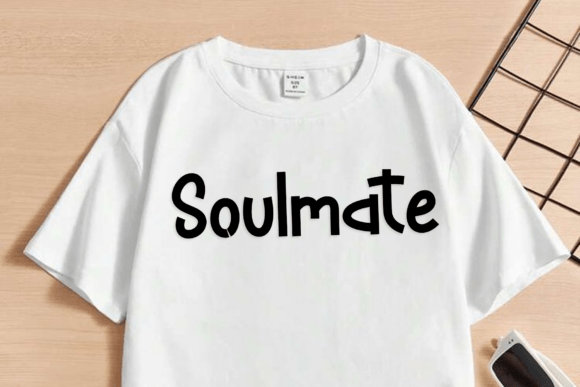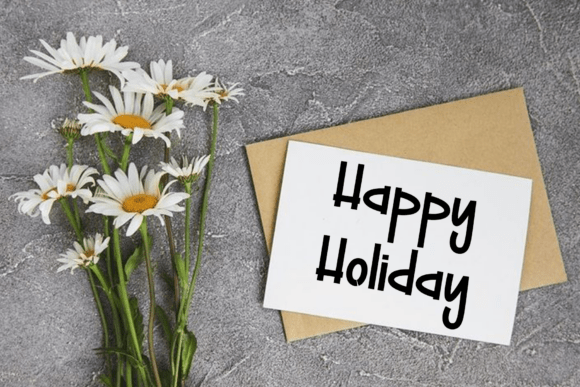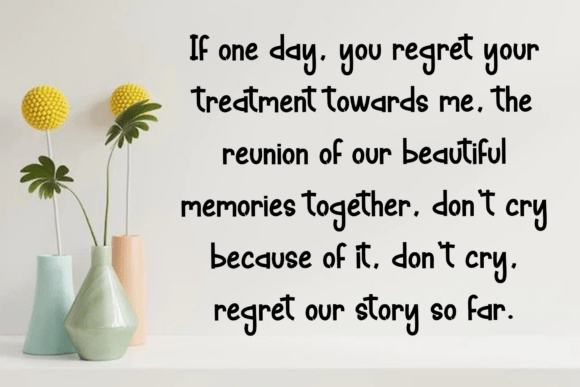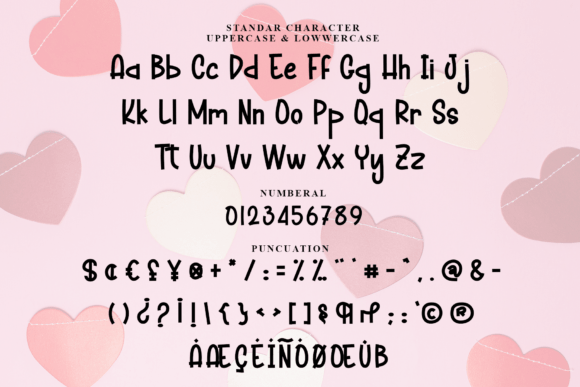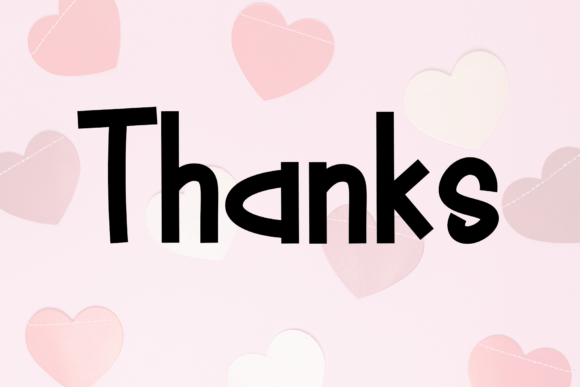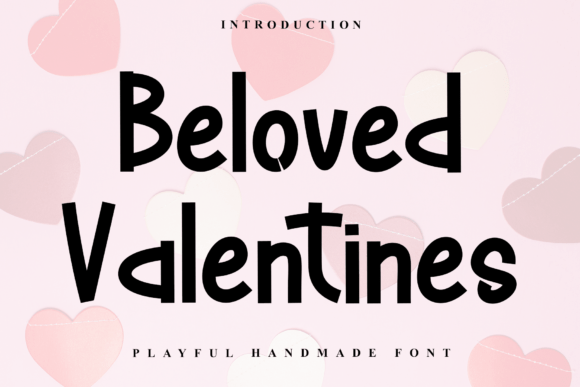
Introducing Beloved Valentines Font: The Perfect Addition to Your Design Collection
Are you on the hunt for a font that exudes warmth, friendliness, and playfulness? Look no further than Beloved Valentines Font! This charming typeface is sure to capture the hearts of designers, crafters, and anyone looking for a unique and cheerful handwritten style. In this article, we’ll dive into the characteristics that make Beloved Valentines a standout font, and explore its various uses in design projects.
A Font with a Personal Touch
Beloved Valentines is a tall, friendly font with a charmingly uneven, monoline weight. Its slightly condensed and clean vertical structure gives it a straightforward, yet approachable, personality. This distinctive style makes it perfect for designs that require a personal touch, such as children’s books, custom stationery, and social media quotes.
Ideal for Children’s Books and Custom Stationery
One of the primary uses of Beloved Valentines Font is in children’s books. Its playful and whimsical nature makes it an excellent choice for storybooks, picture books, and early readers. The font’s clear and cheerful style ensures that young readers can easily follow along with the text, making it an excellent addition to any kids’ literature project.
Custom stationery is another area where Beloved Valentines shines. Whether you’re designing greeting cards, invitations, or gift tags, this font adds a touch of warmth and personality to your creations. Its friendly and approachable style makes it perfect for communicating with loved ones, and its versatility ensures that it will complement a wide range of design styles.
Elevate Your Social Media Quotes with Beloved Valentines
In today’s digital age, social media quotes have become a popular way to share inspiring and motivational messages. Beloved Valentines Font is an excellent choice for creating eye-catching and engaging quotes that will resonate with your audience. Its clean and clear style ensures that your message gets across quickly and easily, while its playful nature adds a touch of personality to your posts.
Casual Branding and Beyond
Beloved Valentines Font is not just limited to children’s books, custom stationery, and social media quotes. Its versatility makes it an excellent choice for casual branding projects, such as logos, packaging, and advertising materials. The font’s friendly and approachable style ensures that your brand comes across as approachable and welcoming, making it perfect for businesses that want to connect with their customers on a personal level.
What Makes Beloved Valentines Font So Special?
So, what sets Beloved Valentines Font apart from other typefaces? Here are just a few characteristics that make it a standout font:
- Unique and playful style: Beloved Valentines has a distinctive, hand-drawn feel that adds a touch of personality to any design project.
- Clear and legible: Despite its playful nature, Beloved Valentines is incredibly clear and easy to read, making it perfect for body text and headlines.
- Versatile: This font is suitable for a wide range of design projects, from children’s books to social media quotes, and from custom stationery to casual branding.
Get Ready to Fall in Love with Beloved Valentines Font
If you’re looking for a font that will add a touch of warmth, personality, and playfulness to your design projects, look no further than Beloved Valentines Font. Its unique style, versatility, and legibility make it an excellent addition to any design collection. Whether you’re a designer, crafter, or simply someone who loves to create, Beloved Valentines is sure to capture your heart and inspire your next project.